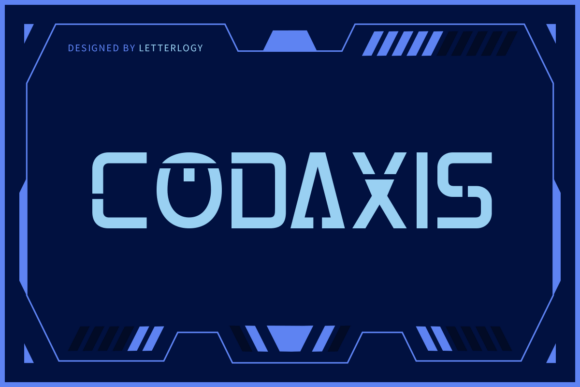
Unlock the Future with Typography
Have you ever stared at a sleek, futuristic interface and wondered what font made it feel so cutting-edge? Perhaps it was the subtle curve of a UI element or the bold declaration of a header. Whatever the design, there’s one thing that ties it all together: the font. And for designers looking to push the boundaries of their creativity, one font stands out from the rest: Codaxis Font.
This high-tech, stencil-inspired typeface is built for the digital frontier, with geometric, modular letterforms that evoke a sense of advanced robotics and cybernetic interfaces. Whether you’re working on a gaming logo, tech startup branding, or futuristic movie poster, the Codaxis Font delivers a powerful, architectural presence that demands attention.
Codaxis Font Key Features
- Font Family: Codaxis Font is a sans-serif font family with a unique blend of modern and industrial elements.
- Size: Codaxis Font comes in 8 font weights, ranging from Light to Black, to cater to different design requirements.
- Unique Characteristics: The font features a distinctive geometric structure, with sharp angles and clean lines, making it ideal for modern and tech-related designs.
- Language Support: Codaxis Font supports a wide range of languages, including Latin, Cyrillic, and Greek scripts, making it suitable for global branding and communication.
Codaxis Font Review
I recently had the chance to work with the Codaxis font, and I’m excited to share my thoughts on this unique typeface. Overall, I was impressed with the ✨ originality and creativity that Codaxis brings to the table.
- ✨ Unique characters**: The Codaxis font features some truly unique characters that add a touch of personality to any design.
- ✨ High level of detail**: The font designers have clearly put a lot of thought into the intricate details of the characters, making them a joy to look at.
- ✨ Versatility**: Codaxis can be used in a variety of design contexts, from titles and headings to body text.
However, there are a few limitations to consider: ⚠️ the font may not be the best choice for large blocks of text, as the unique characters can start to feel overwhelming. Additionally, the font may not be compatible with all operating systems or devices, which could be a problem for designers who need to ensure cross-platform compatibility.
Overall, I think Codaxis is a great choice for designers who are looking to add some visual interest to their work. With its unique characters and high level of detail, it’s a great option for titles and headings, and it can add a touch of personality to any design.